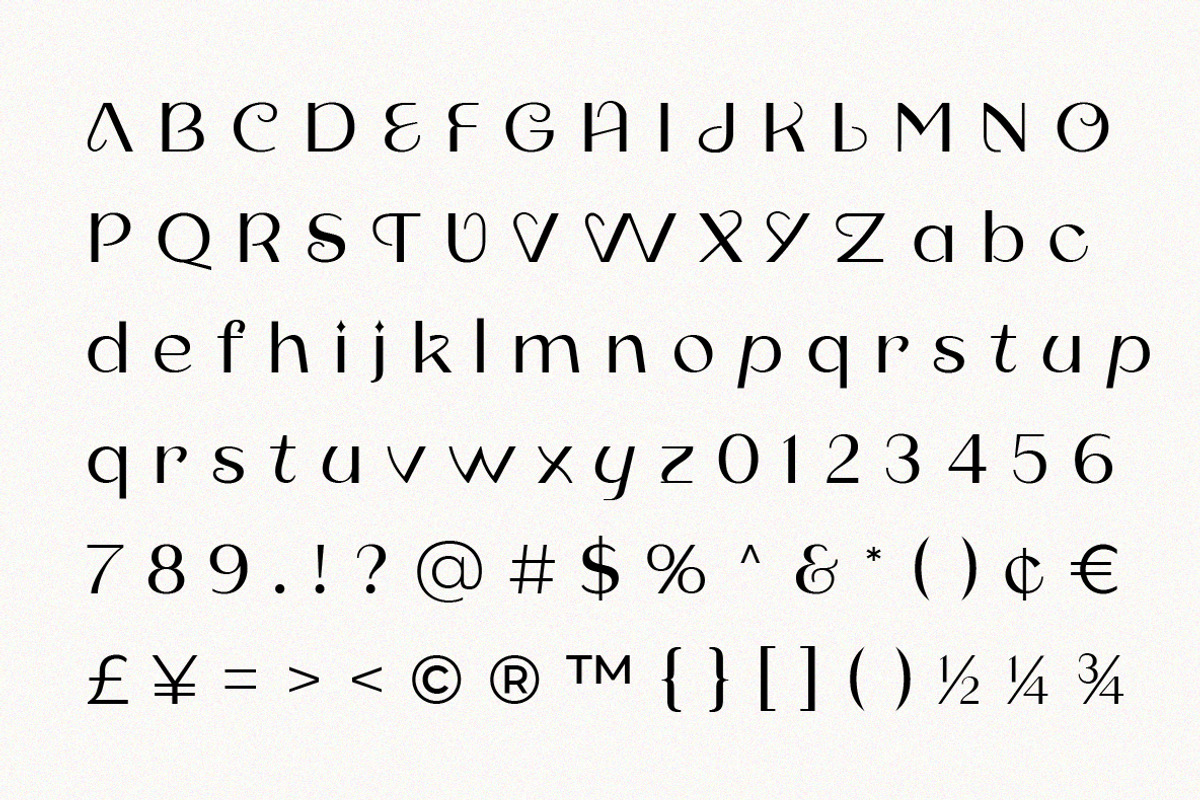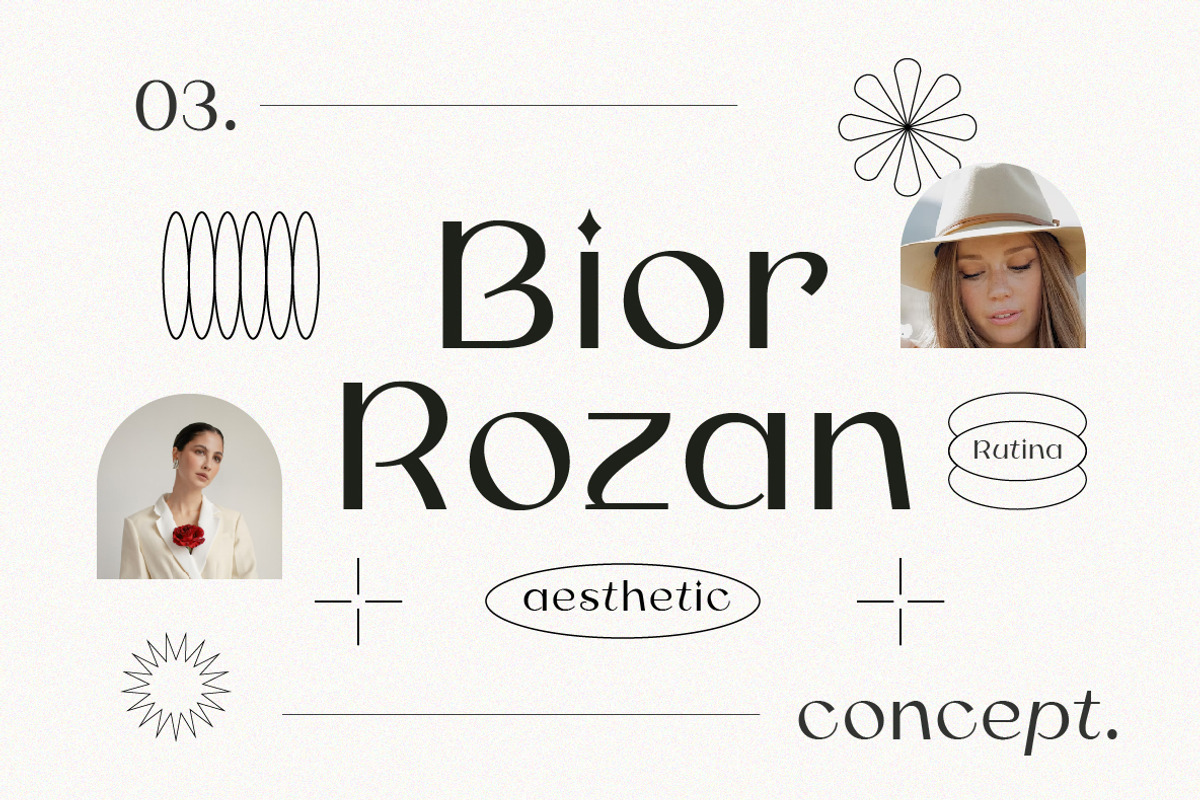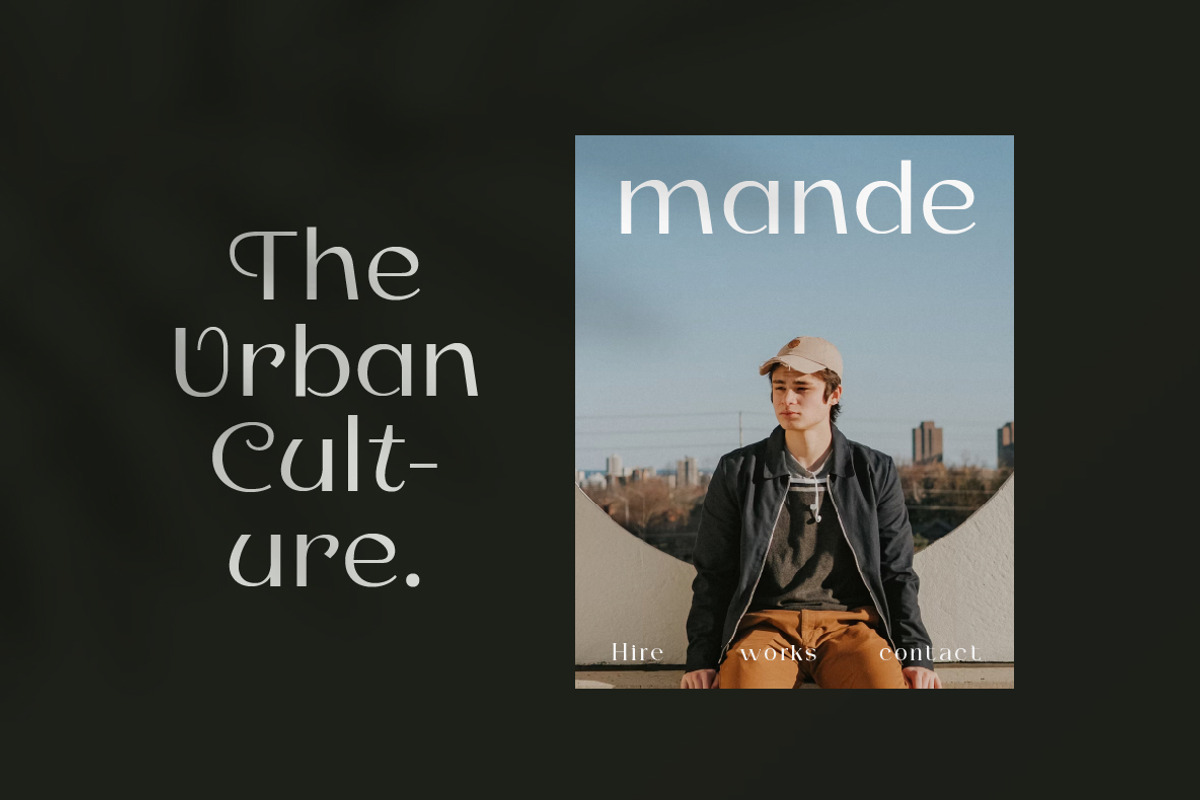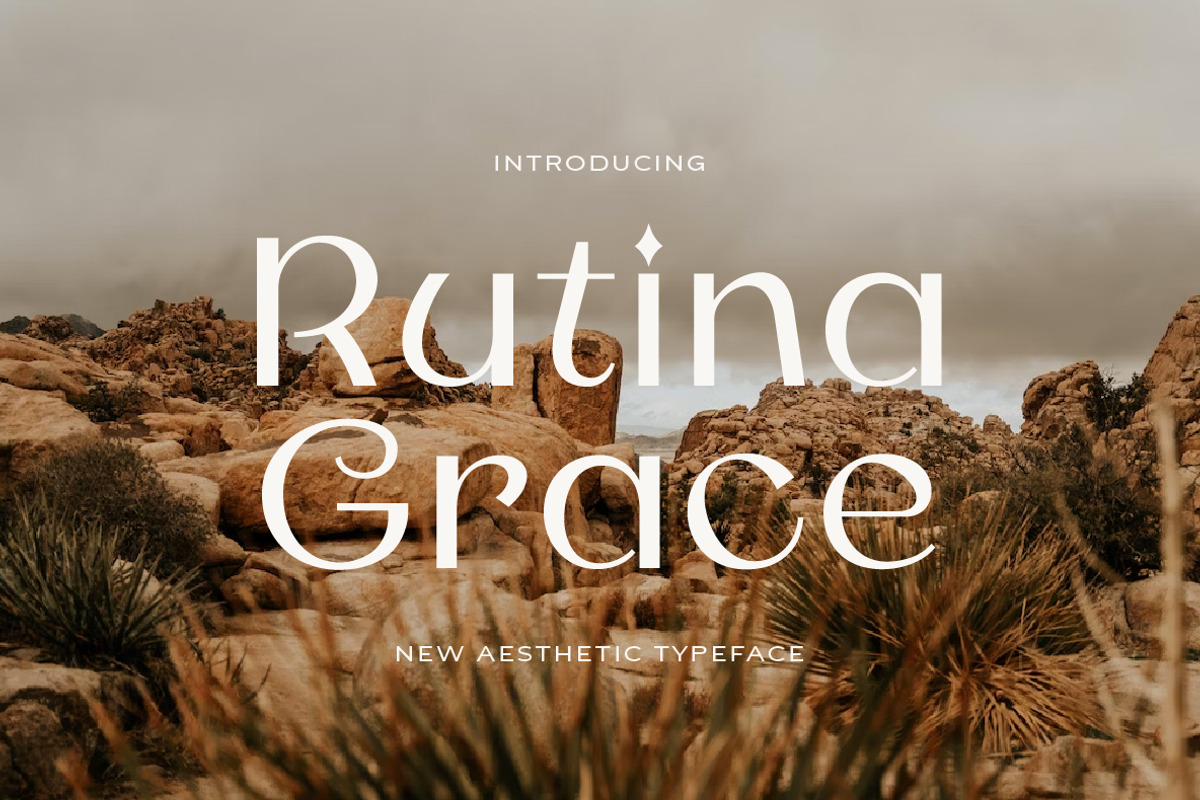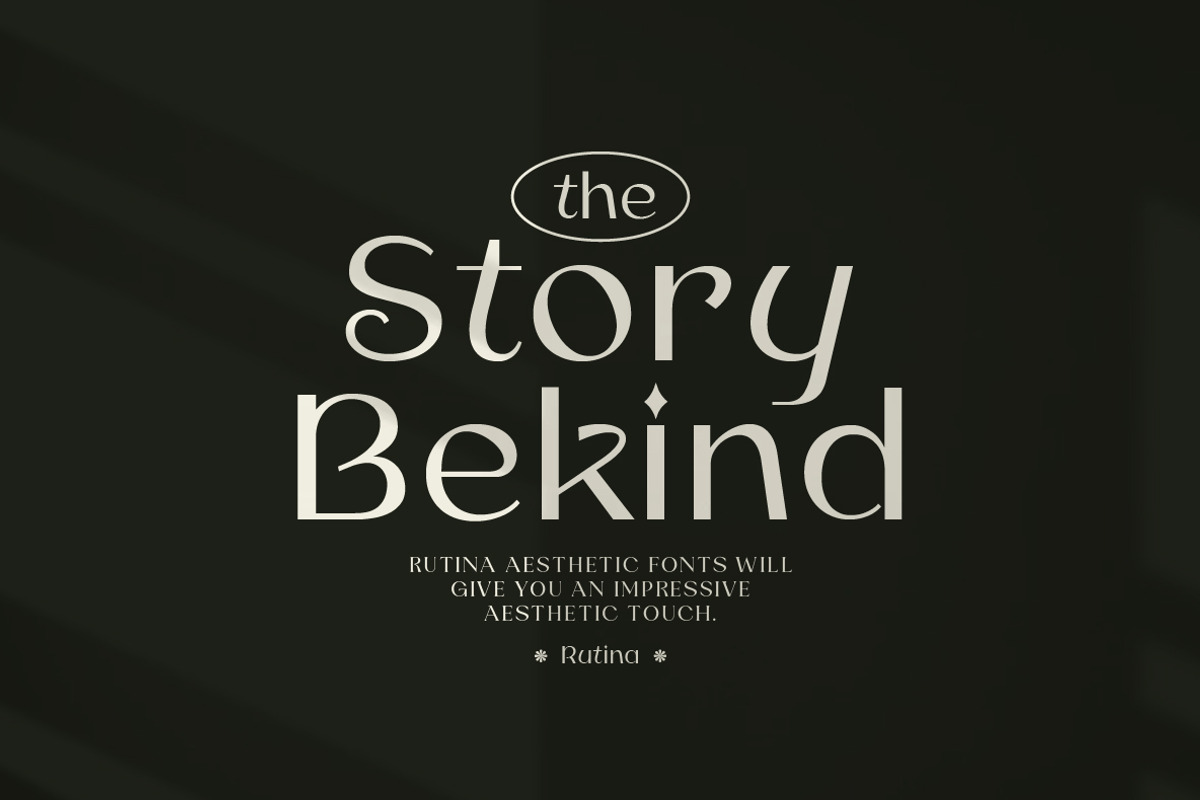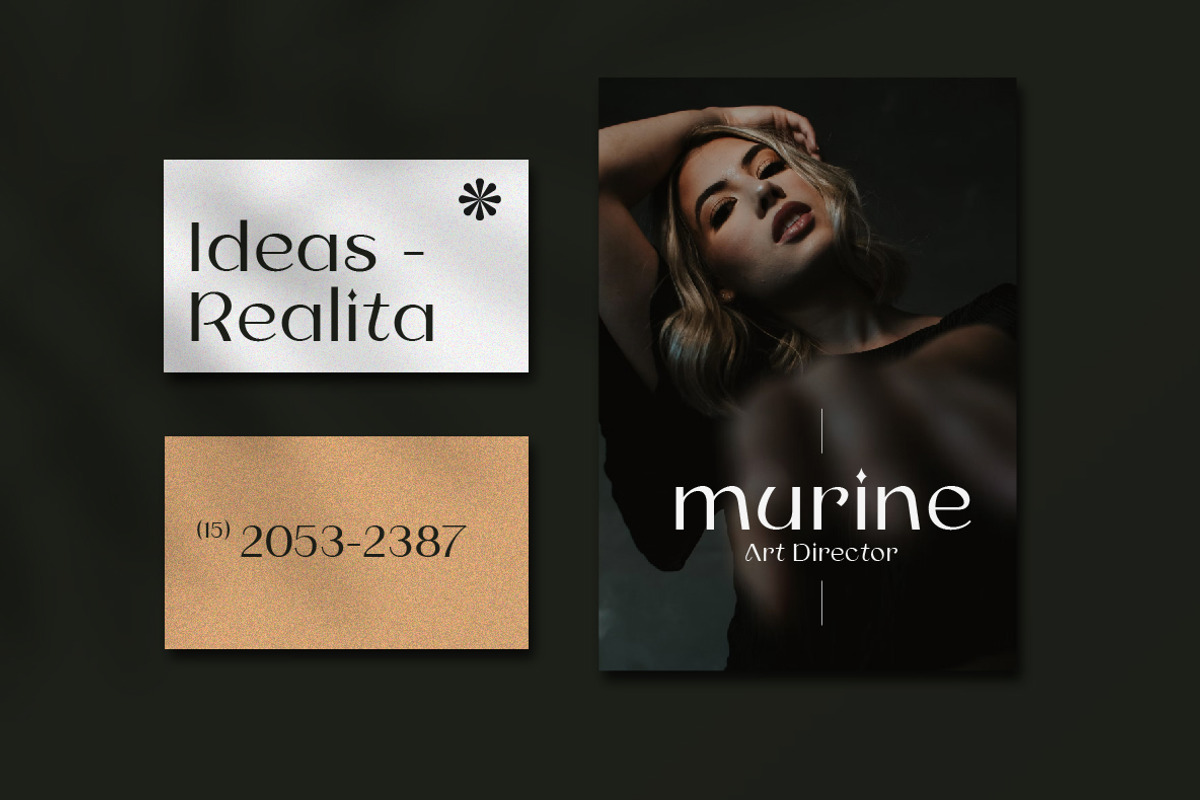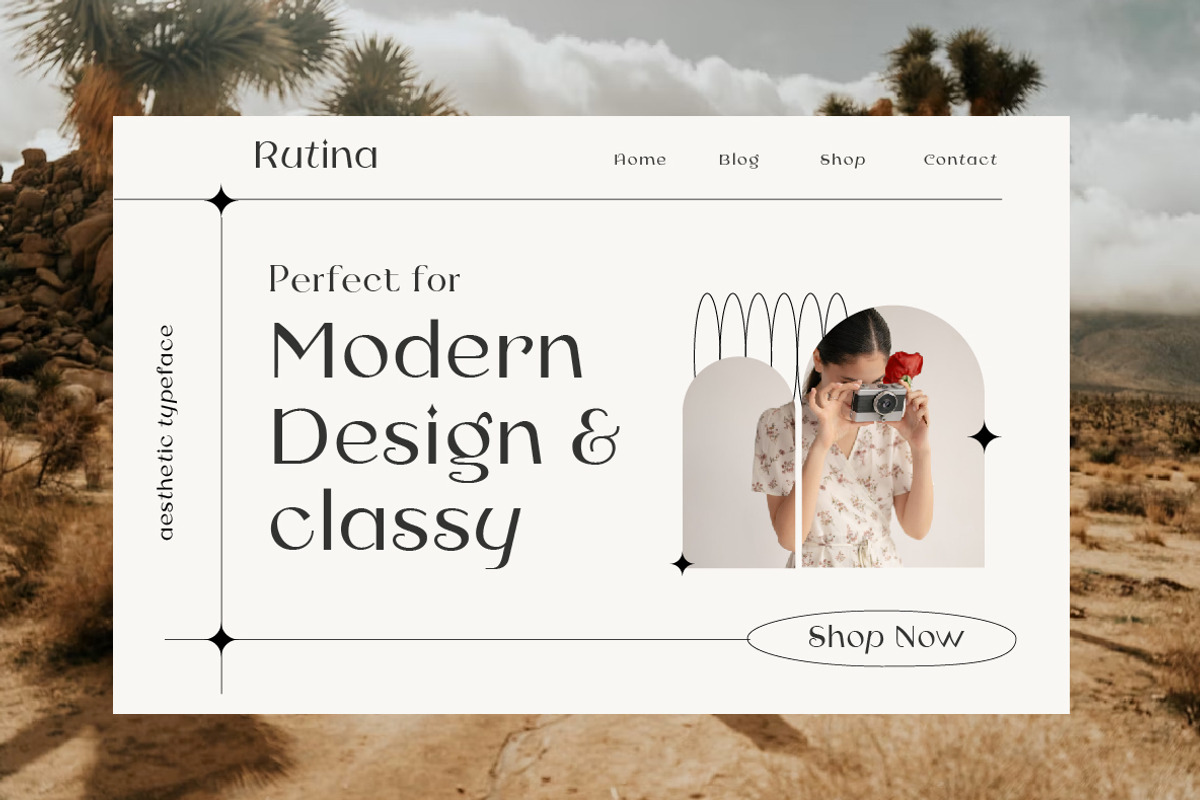
Rutina Aesthetic Fonts
Rutina Aesthetic Fonts is a font that combines a modern, elegant and inspiring aesthetic. With a variety of unique styles and characteristics, this font is designed to give a creative and aesthetic touch to your design projects.
Whether your design project is a graphic design, website display, logo, banner, or other digital artwork, Rutina Aesthetic Fonts will provide an impressive aesthetic touch.